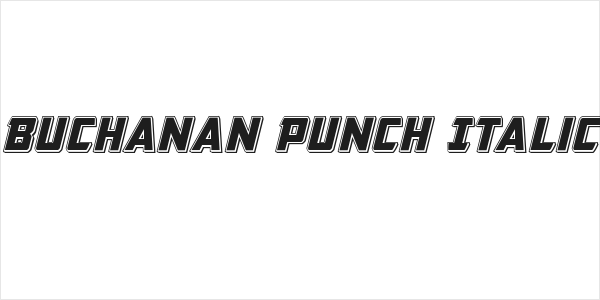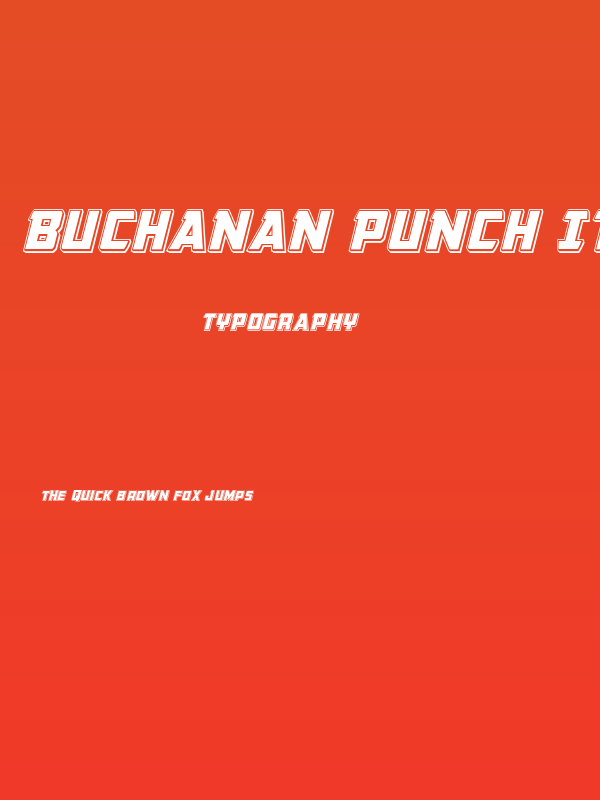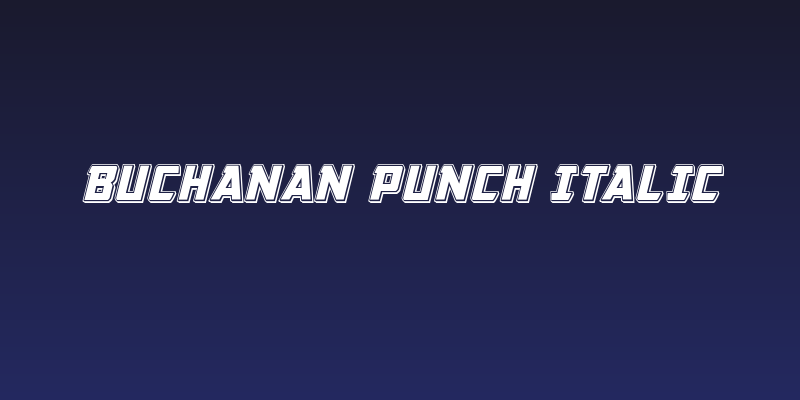
Buchanan Punch Italic Font
Buchanan Punch Italic Description
This font features a bold, italicized style with a strong, impactful presence. The characters are outlined with a thick border, giving them a three-dimensional effect. The uppercase and lowercase letters maintain a consistent slant, enhancing the italic nature of the font. The numerals and special characters follow the same design principles, ensuring uniformity across all glyphs. The font's boldness and outline make it stand out, suitable for attention-grabbing headlines or titles. Its structured and geometric design adds a modern touch, while the italic slant introduces a dynamic feel.
| Proposed Projects | Ideal for sports branding, event posters, or any project needing a bold, dynamic typeface. |